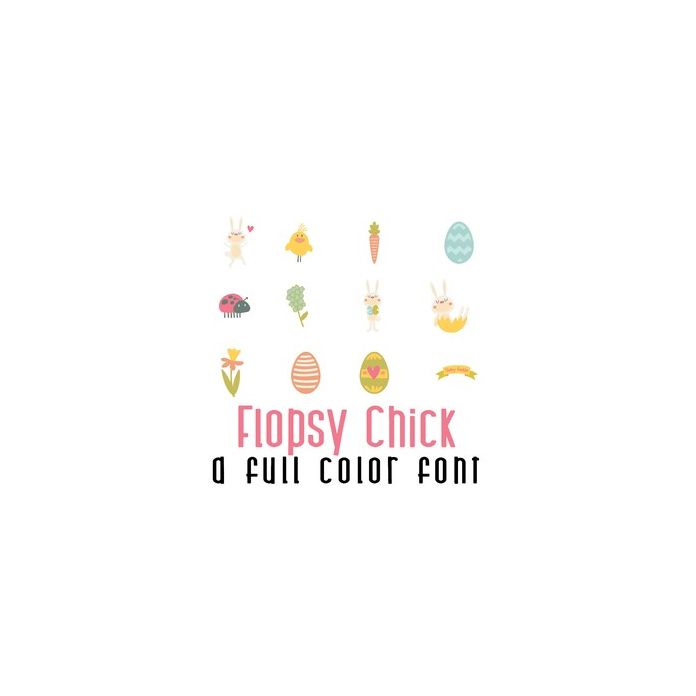
This adorable full-color doodlebat font features 26 Spring and Easter images. Perfect for cards, crafts, gifts, decor, scrapbook pages, planner stickers, and more!